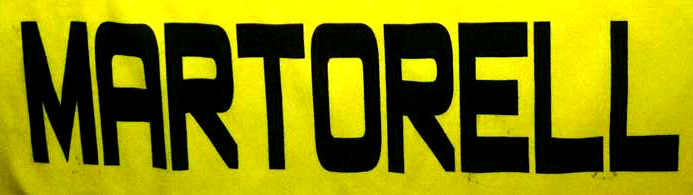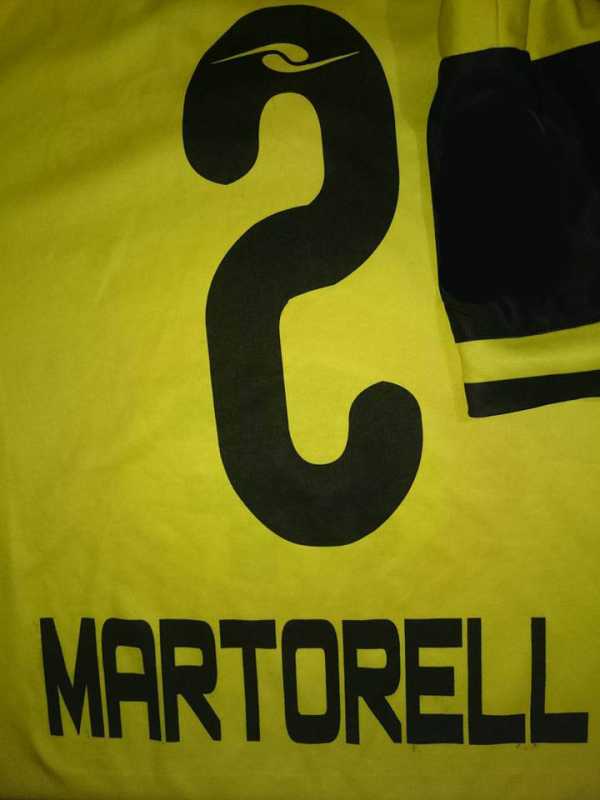
Need to find this font
It looks like "Basic Square 7 Solid" by "Style-7", compressed at least by 50%:
fivos wrote: It looks like "Basic Square 7 Solid" by "Style-7", compressed at least by 50%:
Another help. This font is in a football shirt and I thought the numbers would equal to the text but they are differents , you could help me with the numbers ?